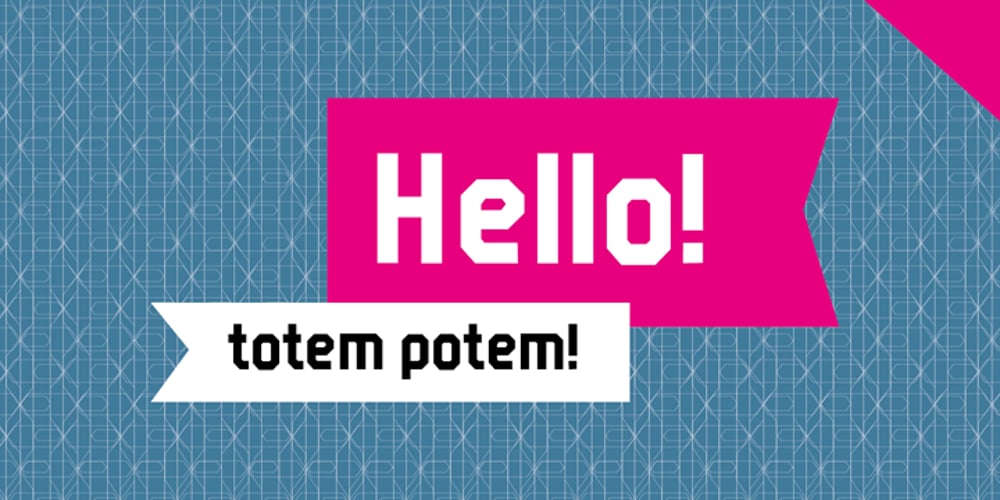
Totem Font Family was designed by published by Cuda Wianki. Totem contains 1 styles and family package options. TOTEM is simple and geometric, strong and modern. Previously it was designed for our logo and next we made the rest of the alphabet, including multi-language coverage and numbers. Totem has a nice set of ornaments too.